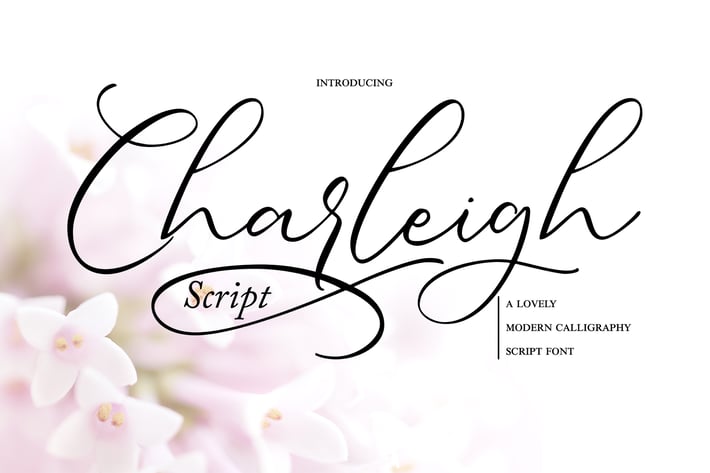
Charleigh | Modern Calligraphy Script Font
Charleigh | Modern Calligraphy Script Font with a calligraphy style, So beautiful on invitation like greeting cards, branding materials, business cards, quotes, posters, and more!